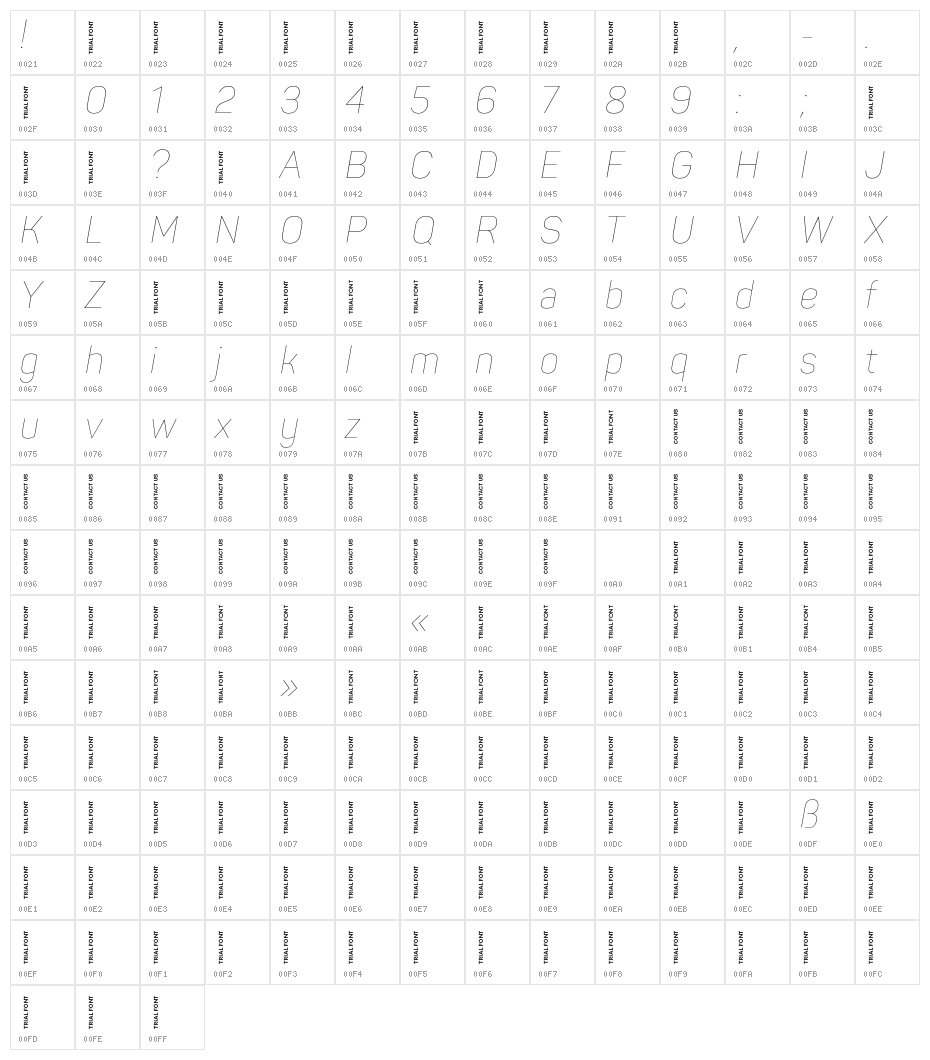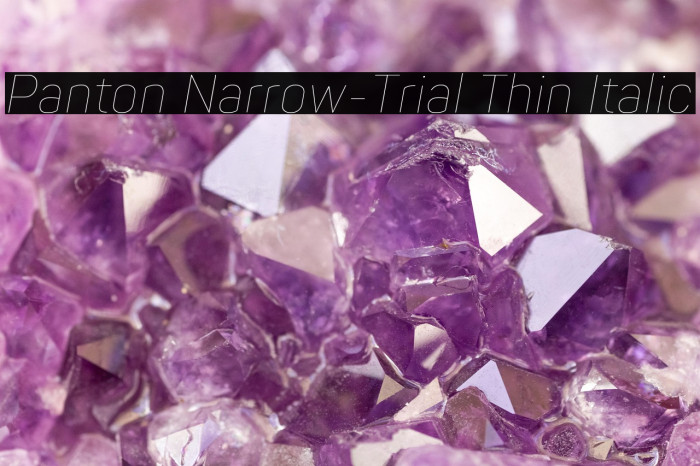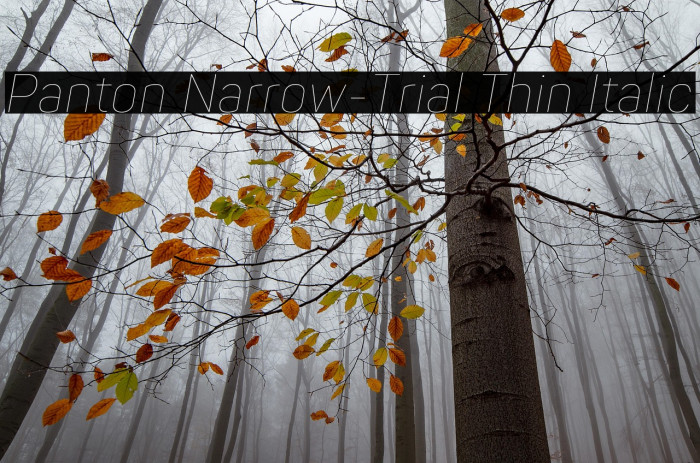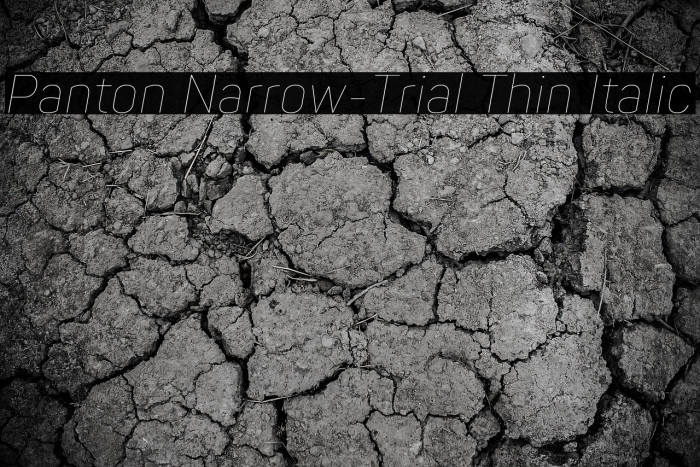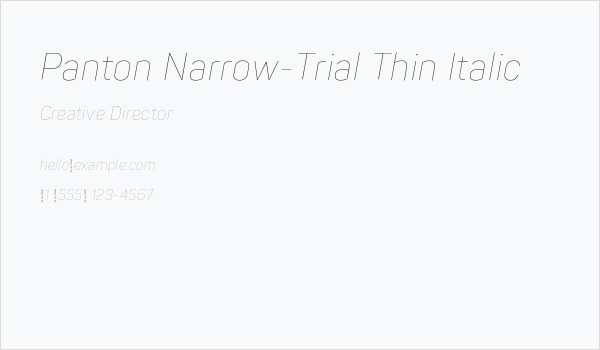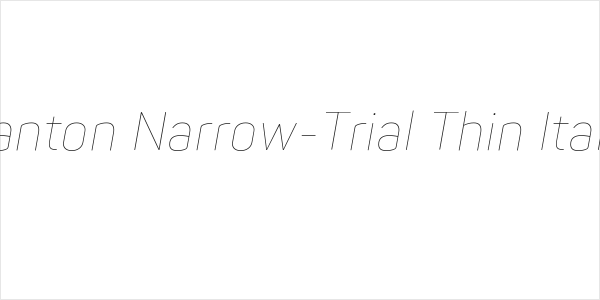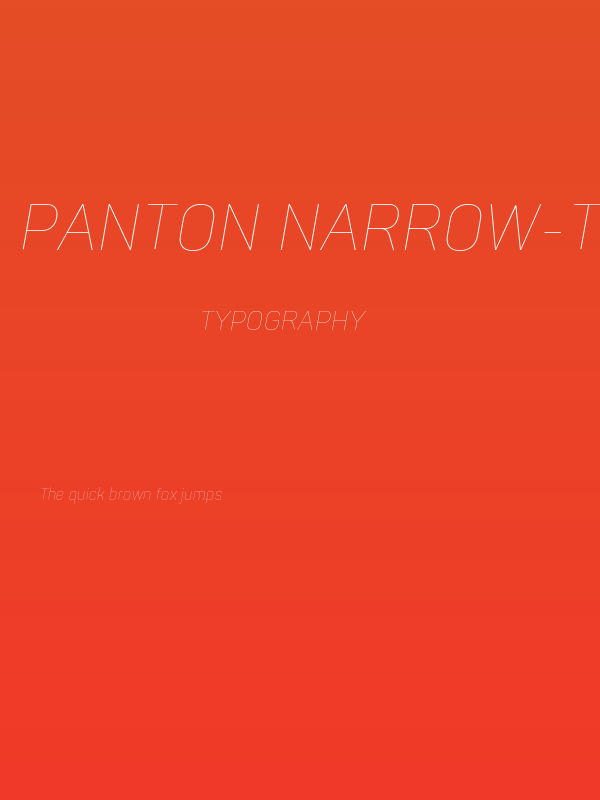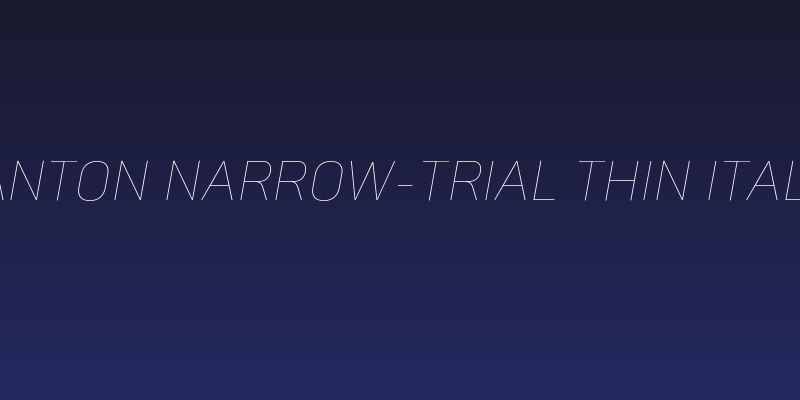
Panton Narrow-Trial Thin Italic Font
Panton Narrow-Trial Thin Italic Description
This font features a sleek and modern design with a narrow and elongated structure. Its thin strokes and italicized form give it a sophisticated and elegant appearance. The characters are slightly slanted, adding a dynamic and forward-moving feel. The font maintains a consistent line weight throughout, contributing to its minimalist aesthetic. The spacing between characters is tight, enhancing its streamlined look. This font is ideal for projects that require a contemporary and stylish touch, such as branding, fashion editorials, or modern web design.